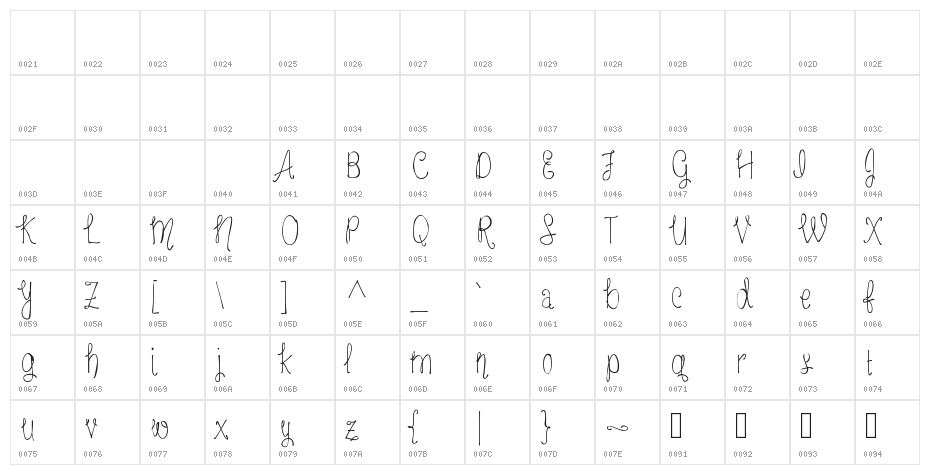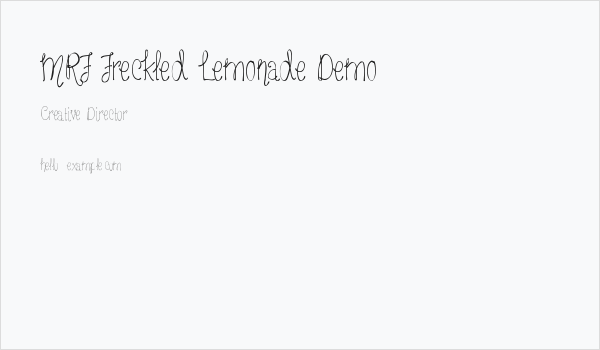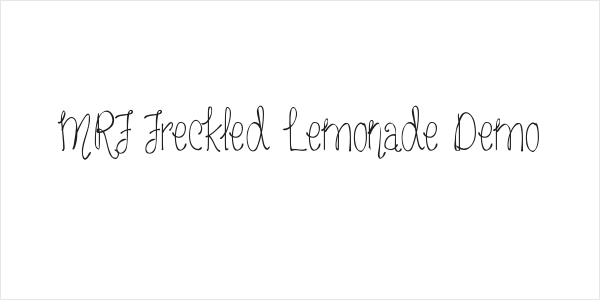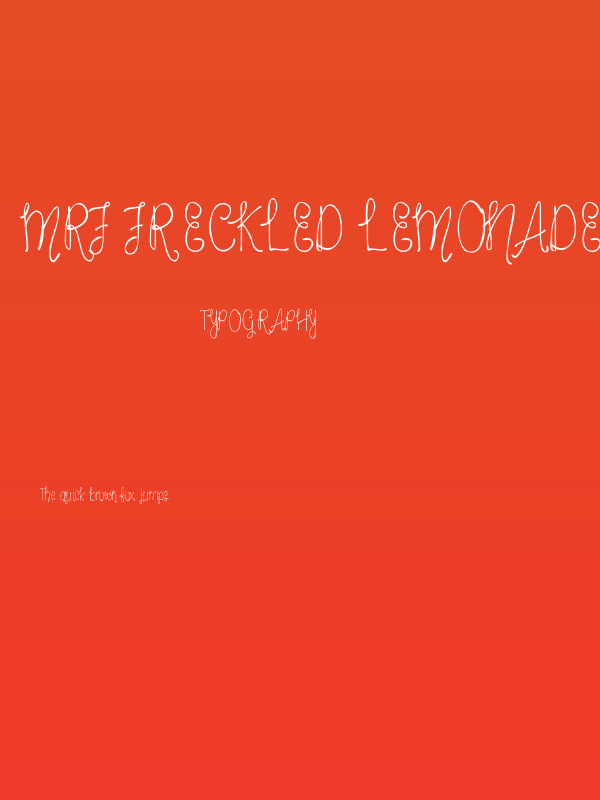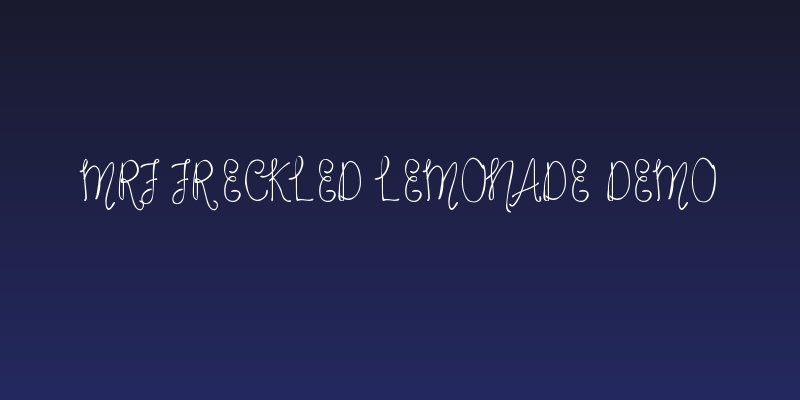
MRF Freckled Lemonade Demo Font
MRF Freckled Lemonade Demo Description
This font features a whimsical, handwritten style with a playful and artistic flair. Each character is uniquely crafted with loops and curls, giving it a lively and dynamic appearance. The strokes are consistent in thickness, providing a uniform look across all letters. The uppercase letters are tall and slender, while the lowercase letters maintain a similar height, creating a cohesive and balanced design. The font includes a full set of uppercase and lowercase letters, numbers, and a selection of special characters, making it versatile for various design needs. Its decorative nature makes it ideal for projects that require a touch of creativity and individuality.
| Proposed Projects | Ideal for greeting cards, invitations, children's books, and creative branding. |